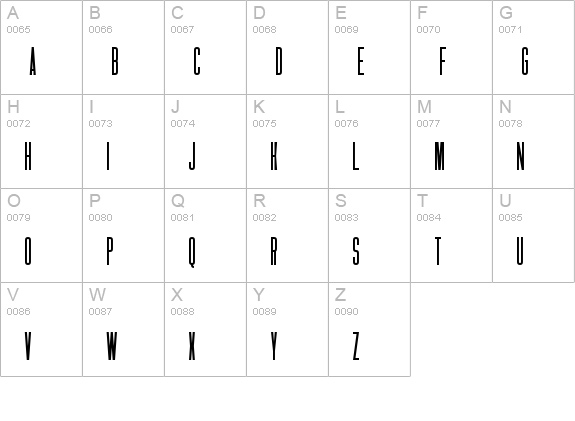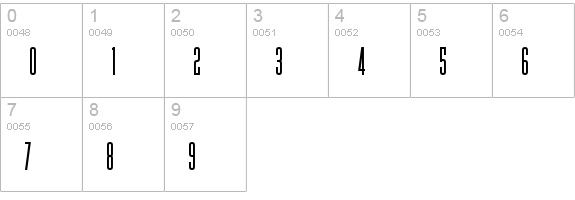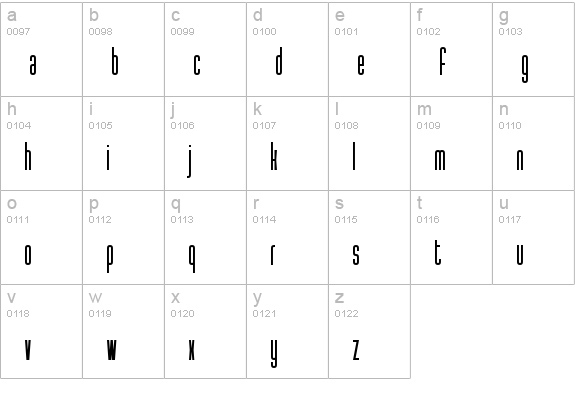
See You At The Movies 2: Revenge & Retribution Font Details
Introducing the captivating and dynamic font, See You At The Movies 2: Revenge & Retribution! This font exudes a sense of drama and excitement, perfect for adding a bold statement to your designs. With its sleek lines and sharp edges, See You At The Movies 2 commands attention and leaves a lasting impression. What's even better is that See You At The Movies 2: Revenge & Retribution font is available for free download at FontsMarket.com! Yes, you read that right - this stunning font can be yours without any cost. So why wait? Elevate your projects with this eye-catching font and let your creativity soar. Download See You At The Movies 2: Revenge & Retribution today and make your designs stand out from the crowd!